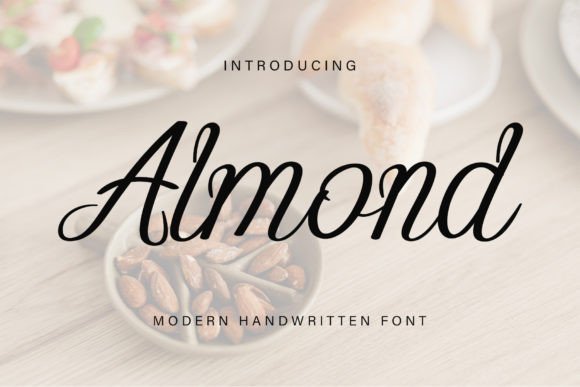
The Almond Font: A Cute and Quirky Companion for Your Design Projects
I’ll never forget the time I was working on a whimsical craft project, pouring my heart and soul into creating a unique and eye-catching design. But as I sat staring at my computer screen, I realized that something was missing – the perfect font. That’s when I stumbled upon the Almond font, a cute handwritten font with a fun and quirky personality that instantly captured my attention. In this article, I’ll share my experience with the Almond font, its features, and how you can make the most of it in your designs.
A Personal Review: What I Love About Almond Font
The Almond font has quickly become one of my go-to fonts for creative projects. Here’s what I love about it:
- ✨ Unique and playful letterforms: The Almond font has an irregular and playful style that adds a touch of whimsy to any design.
- ✅ Natural, handwritten feel: The font’s natural, handwritten style makes it perfect for designs that require a charming and personal touch.
- 💕 Versatile and adaptable: The Almond font can be used for a wide range of projects, from craft and hobby projects to commercial designs.
While the Almond font is a gem, it’s not without its quirks. Here are a few things to keep in mind:
- ⚠️ Limited use in formal designs: The Almond font’s playful style may not be suitable for formal designs or projects that require a more professional tone.
- 🤔 Glyph and alternates management: The font has a range of glyphs and stylistic alternates, which can be a bit tricky to manage, especially for beginners.
The Story Behind Almond Font
The Almond font was designed by a talented type designer who wanted to create a font that captured the playful and whimsical spirit of handwritten lettering. Inspired by the natural, flowing lines of handwritten script, the Almond font was crafted to bring a touch of personality and charm to any design.
- Q: What is the Almond font best suited for?
- A: The Almond font is perfect for designs that require a touch of whimsy and individuality, such as craft and hobby projects, social media graphics, and creative branding.
- Q: Is the Almond font suitable for formal designs?
- A: No, the Almond font’s playful style may not be suitable for formal designs or projects that require a more professional tone.